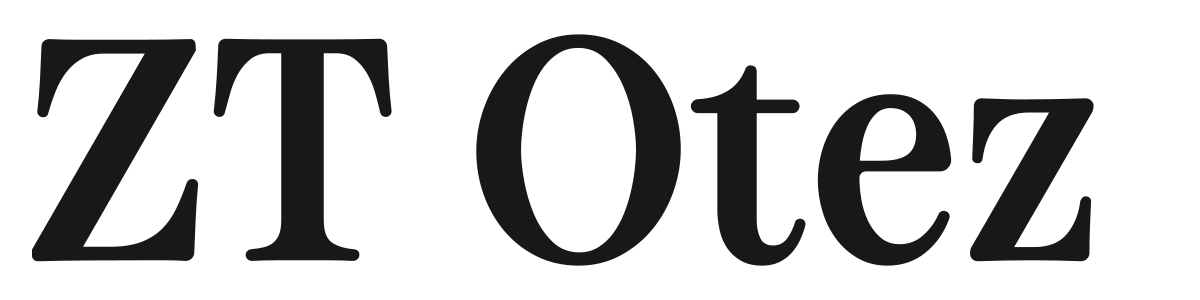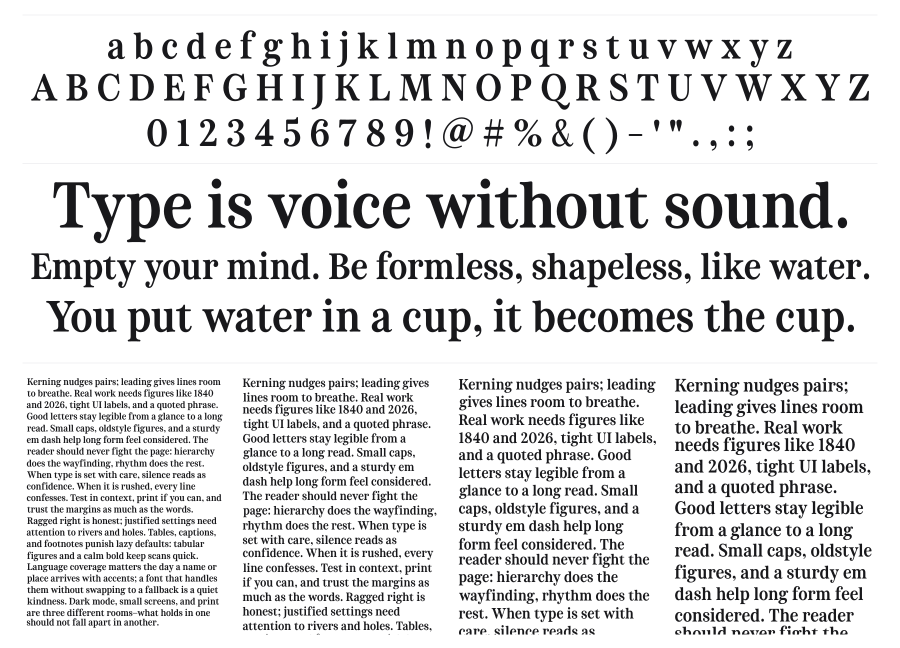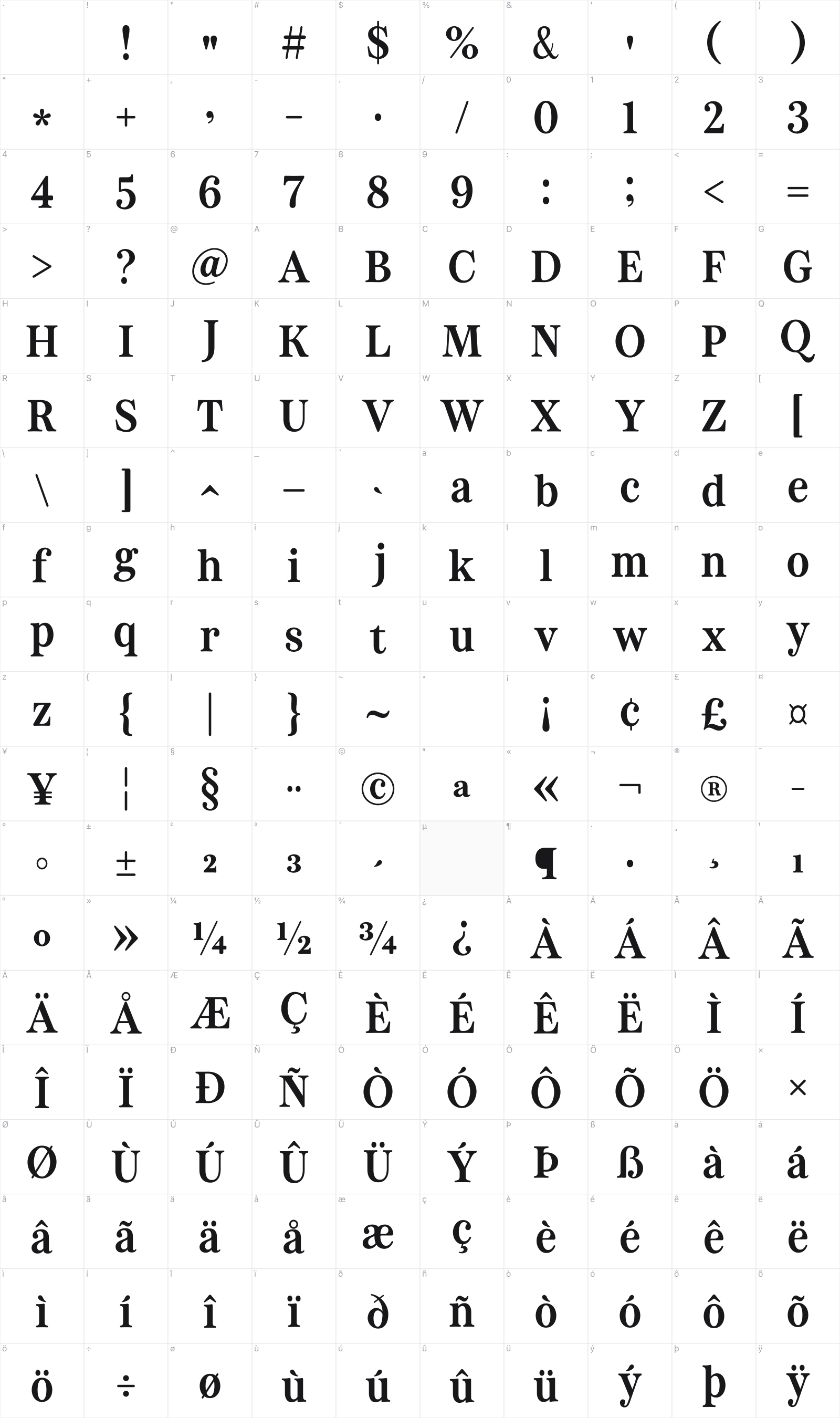
ZT Otez
by Zelow Type
ZT Otez is a refined transitional serif inspired by classic editorial lettering and 20th-century French book typography. It spans 90 styles from Thin Condensed to Black Expanded, with a dramatic 28-degree italic slant that adds high energy alongside the poised roman weights. The result is a workhorse family with genuine character, built for luxury branding, magazine layouts, and packaging.